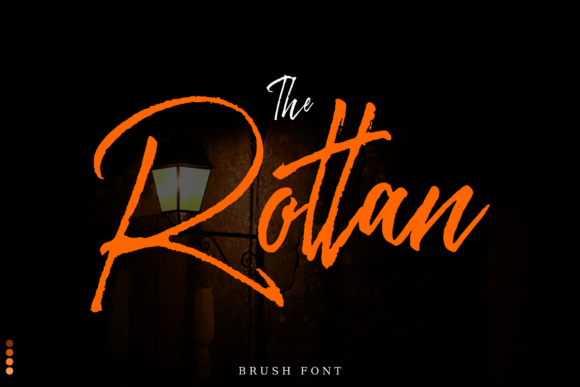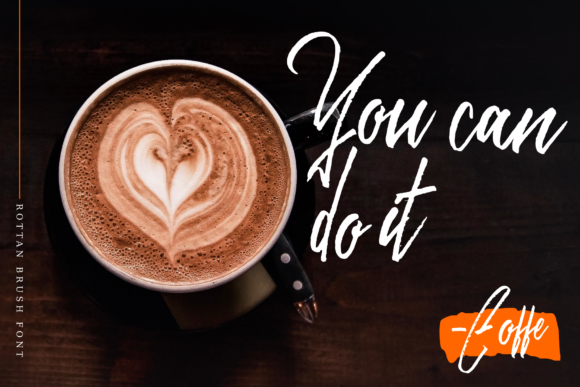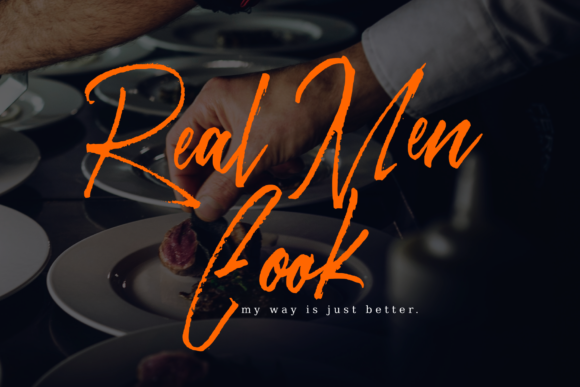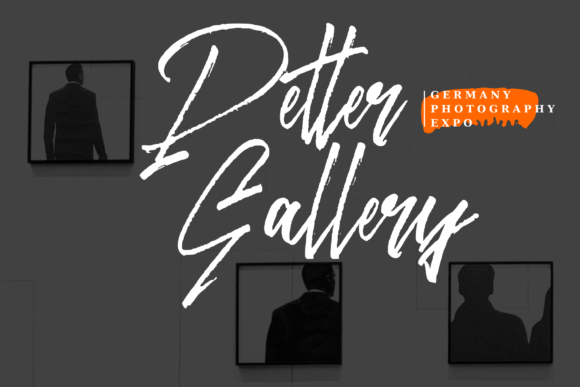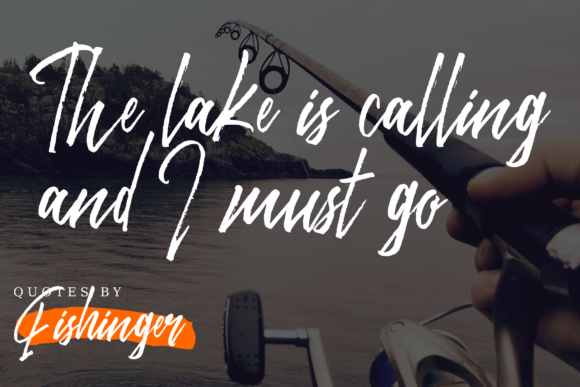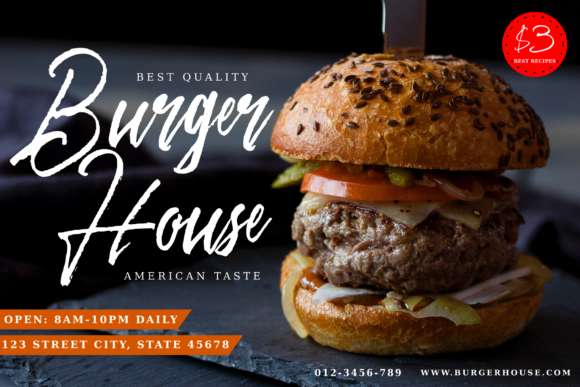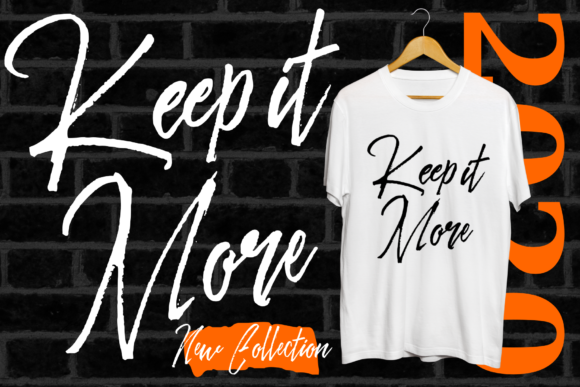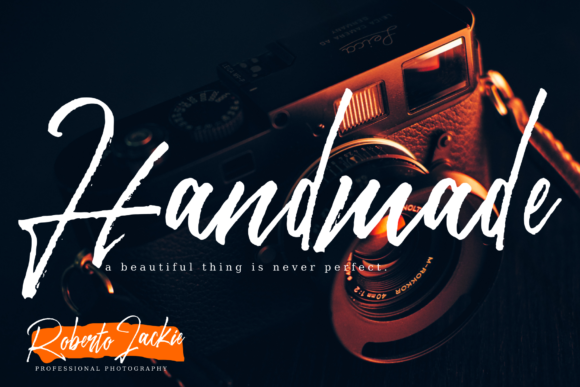
Rottan Font
About Rottan Font
Rottan is a rustic, dapper handwritten font with a unique, personal charm. With its quick dry strokes and a signature style, it’s a great and authentic way to elevate a wide range of design applications. This font is also PUA-encoded, which allows you to easily access a wide range of additional glyphs, ligatures and characters!